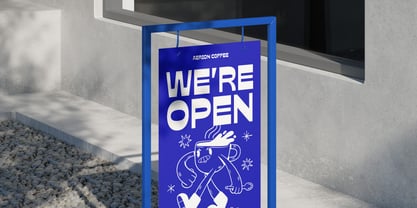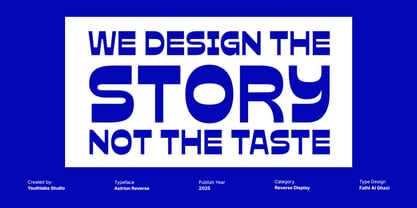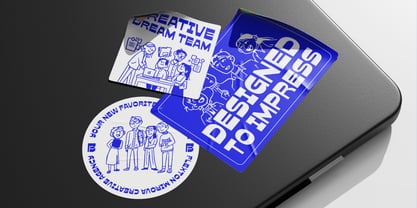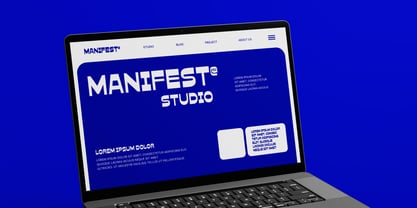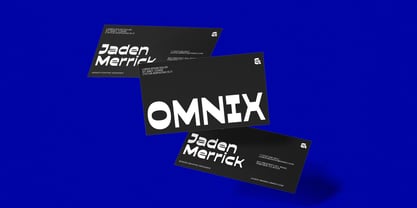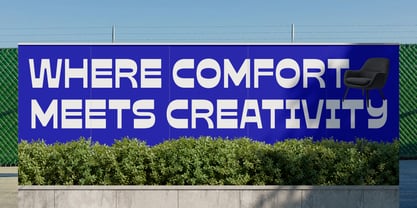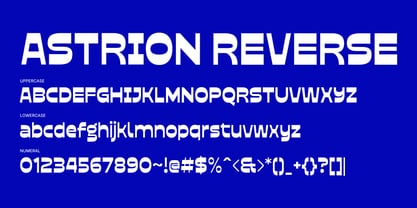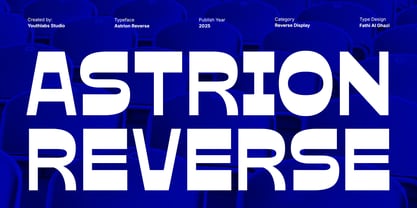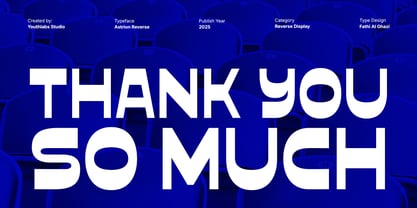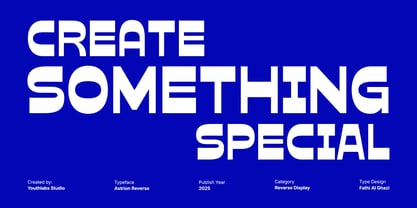
Astrion Reverse
by Youthlabs
The Astrion Reverse Font Family was designed by Fathi Al Ghazi and published by Youthlabs. Astrion Reverse contains 1 styles. More about this family
Astrion Reverse is a bold, futuristic reverse-contrast display typeface designed to command attention. Its unique structure flips traditional contrast rules, giving each letter a striking, modern, and experimental appearance. Perfect for branding, posters, esports visuals, editorial titles, stadium graphics, tech presentations, and any design that demands a strong visual identity. Astrion Reverse blends geometric precision with a bold attitude—making it ideal for designers who want impact and originality
Designers: Fathi Al Ghazi
Foundry: Youthlabs